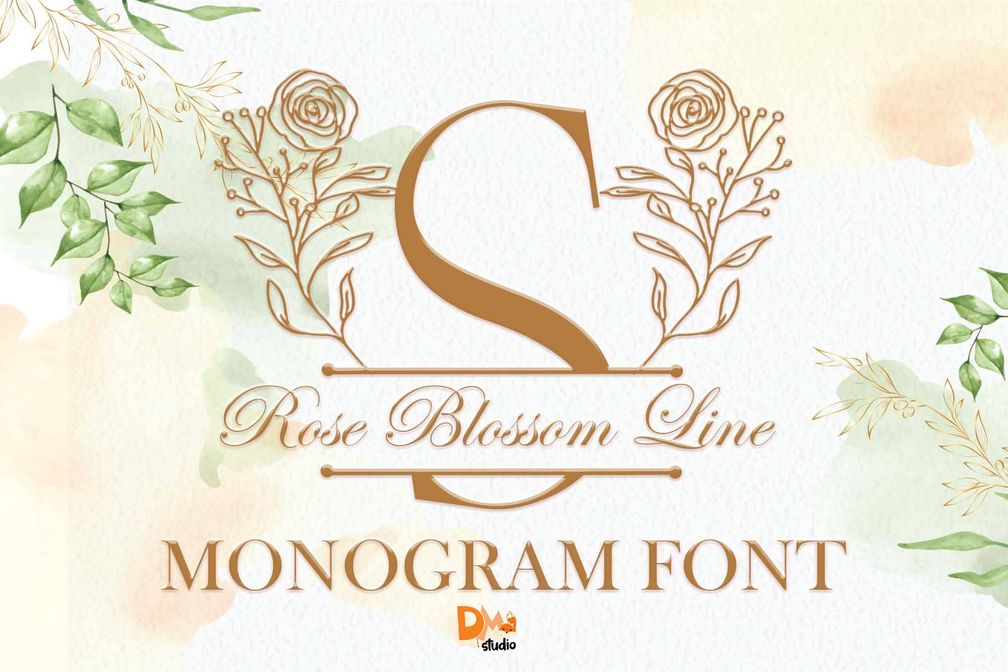
Rose Blossom Line Monogram
Rose Blossom Line Monogram – Elegant & Delicate Floral Monogram Font
Rose Blossom Line Monogram is a beautifully hand-drawn monogram font featuring graceful rose illustrations intertwined with elegant lettering. Designed with a soft, romantic aesthetic, this font is perfect for weddings, personalized branding, boutique packaging, and feminine-themed projects. Each letter is enhanced with fine rose line art, offering a sophisticated and timeless appeal.
• Hand-Drawn Rose Line Art – Each letter is adorned with delicately illustrated rose blossoms and vines.
• Timeless Botanical Charm – A perfect blend of nature and elegance in a clean monogram style.